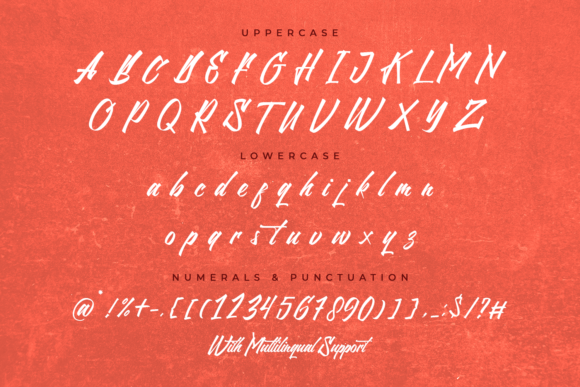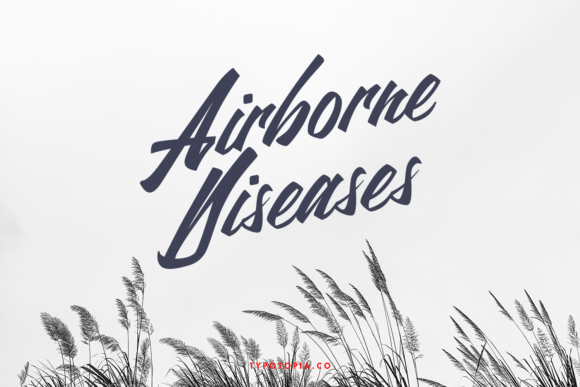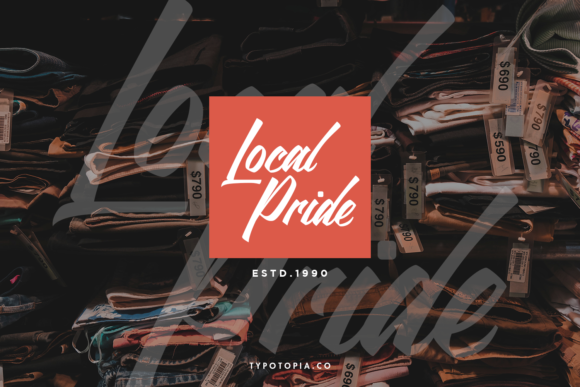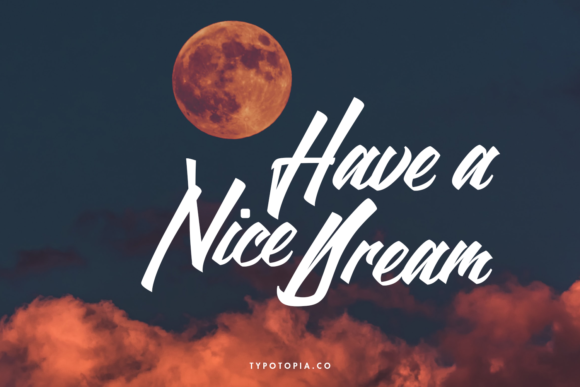
About Northline Font
Northline is a modern and bold handwritten font. This font reads as strong, confident, and dynamic and can add tons of nostalgic character to your designs.